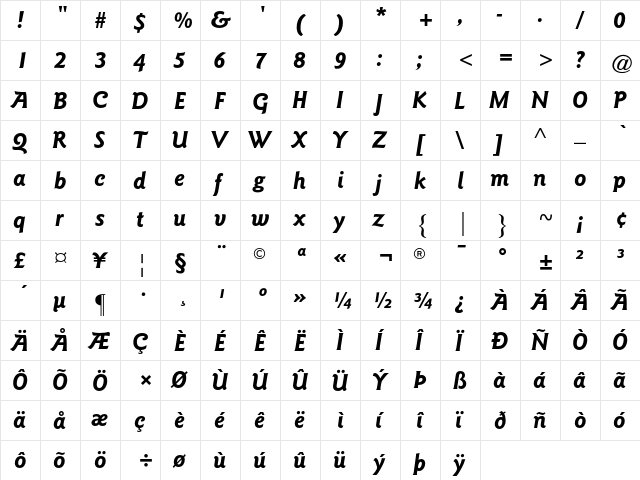
Goudy Sans AT Bold Italic Font Preview
Design Context for Goudy Sans AT Bold Typeface
Goudy Sans AT Bold takes a measured approach to typography — its balanced proportions and neutral character make it a reliable workhorse for both digital and print work. Its italic angle brings a sense of urgency and motion to the letterforms. Its bold stroke weight gives it real presence on the page.
Pro Tip: Try Goudy Sans AT Bold for annotation and caption copy alongside an upright companion — the contrast in angle creates a dynamic but ordered typographic system.